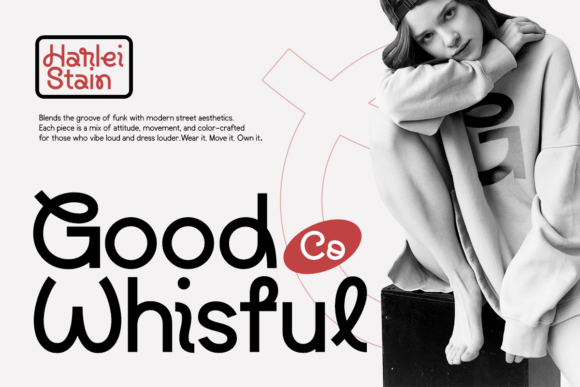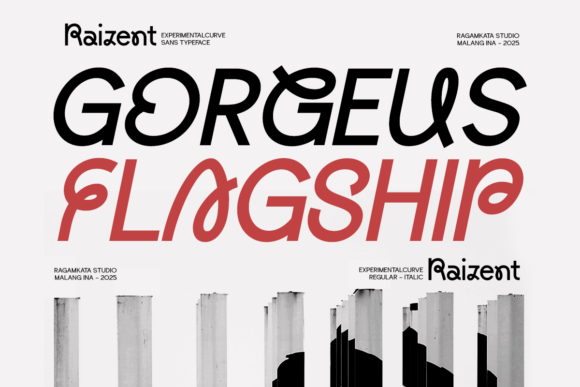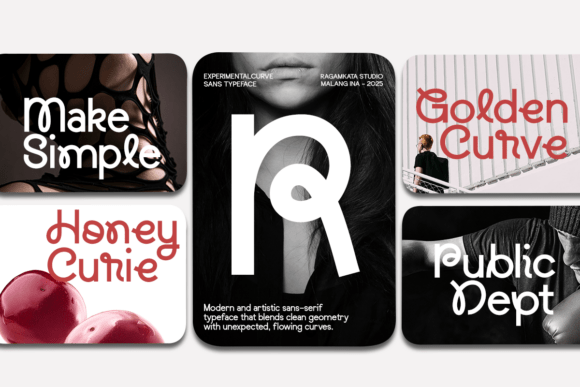
Introduction to Raizent Font
Have you ever stared at a blank canvas, waiting for inspiration to strike? That’s exactly where I was when I stumbled upon the Raizent Font. Its bold, futuristic curves immediately caught my attention, and I knew I had to dive deeper. As a designer, I’m always on the lookout for unique design resources that can elevate my creative projects. And that’s exactly what Raizent Font offers – a game-changing typography solution that’s sure to make your designs stand out.
With its monolinear, chunky letterforms and precise rounded entry and exit strokes, the Raizent Font is a true masterpiece. Whether you’re working on a tech-focused advertising campaign or a minimalist website design, this font is the perfect choice. Its high-quality design ensures a sophisticated, cutting-edge aesthetic that’s sure to impress.
But what truly sets Raizent Font apart is its versatility. With both regular and italic weights, you can create dynamic visual hierarchies and deliver your message with confidence. Plus, with PUA-encoded access to all glyphs, swashes, and alternate characters, you’ll have endless possibilities for customization.
Key Features of Raizent Font
- Unique, hand-drawn design elements and stylish lettering, perfect for adding a creative touch to your work.
Honest Review: Raizent Font
As a designer, I’m always on the lookout for high-quality design resources that can elevate my creative projects. Recently, I stumbled upon the Raizent Font, and I must say, it’s been a game-changer for me.
Here are some things that I really like about the Raizent Font:
- ✨ Unique and elegant design style that adds a touch of sophistication to any project.
- ✨ Highly versatile, suitable for a wide range of creative projects, from branding to editorial design.
However, I did encounter some limitations with the Raizent Font:
- ⚠️ Limited character set, which can be a problem for designers who need to use the font for longer texts.
Overall, I’m really impressed with the Raizent Font, and I would definitely recommend it to fellow designers. While it may have some limitations, its unique design style and high quality make it a valuable addition to any design resource collection.